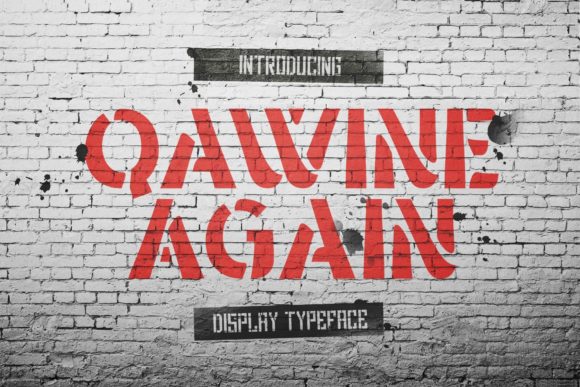
Prepare yourself to be captivated by Qawine Again, the display font that exudes boldness and assertiveness. This font is more than just a collection of characters; it's an expression of individuality and style. Its sharp edges and commanding presence will leave an unforgettable impression on your readers.
With Qawine Again, your words will leap off the page, demanding attention and leaving a lasting impact. Whether you're crafting a typed letter, designing a striking poster, or creating a captivating logo, this font will elevate your project to new heights.
Qawine Again is a versatile performer, effortlessly adapting to various design aesthetics. Its confident strokes and clean lines make it a perfect choice for headlines, titles, and short blocks of text. Unleash your creativity and watch as Qawine Again transforms your designs into masterpieces.
As a PUA-encoded font, Qawine Again offers effortless access to a world of glyphs and swashes, allowing you to add intricate details and flourishes to your work. Experiment with different combinations and create designs that are uniquely yours.
Qawine Again is not just a font; it's an experience. Immerse yourself in its bold personality and discover a new level of creative expression. Let your words dance across the page with confidence and flair, leaving your audience spellbound.
Don't settle for ordinary fonts. Embrace the power of Qawine Again and watch as your designs come alive with a captivating boldness that will leave everyone in awe.